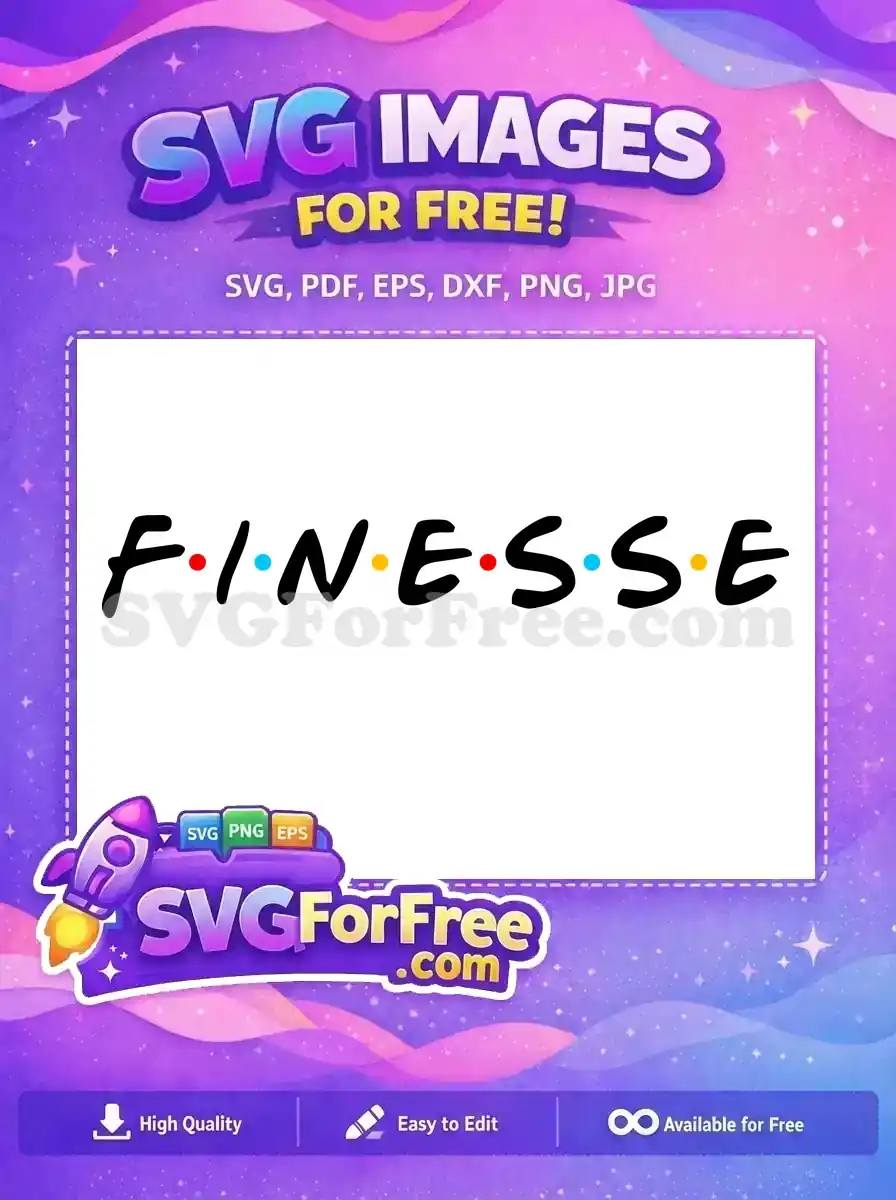
Free Finesse Black Font Free Colorful Dots Black History Month Free SVG – Instant Download
Download this free ‘FINESSE’ logo SVG, inspired by iconic TV show lettering. Perfect for fans and creative projects.
Free Finesse Black Font Free Colorful Dots Black History Month Free SVG